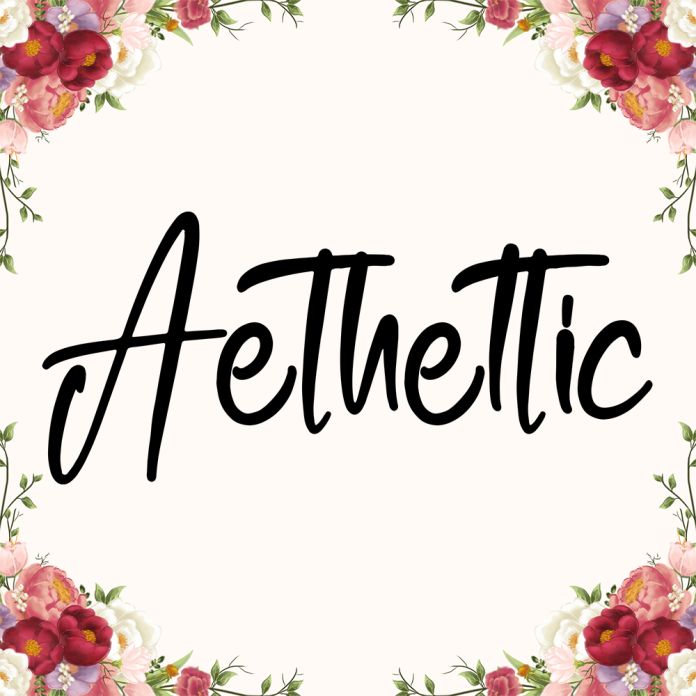
Aetheltic is a sweet and welcoming handwritten font inspired by rustic charm. With flowing curves and a natural feel, it’s perfect for farmhouse signs, crafts, and heartfelt quotes.